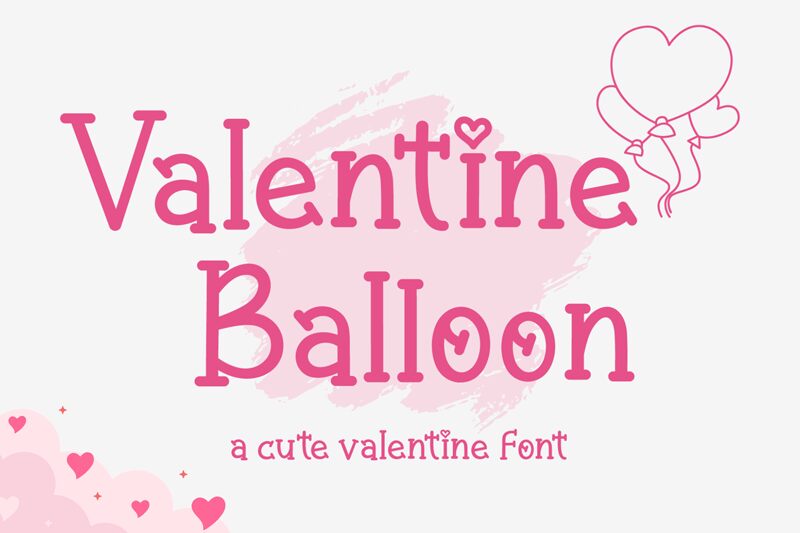
Valentine Balloon
Valentine Balloon font by AEN Creative Studio is a free romantic holiday font. Each letter feels puffed and airy, like ink-drawn balloons with playful curls and tiny heart details that float above the line. The strokes are rounded and friendly, giving your text a hand-doodled, affectionate feel that’s sweet without being cheesy, great for projects that need charm and warmth in an instant.
Using Valentine Balloon, your Valentine’s cards, party invitations, classroom printables, stickers, social media posts, and gift tags all gain a whimsical, love-struck voice. The generous spacing keeps it readable even at larger sizes, where those swirls and hearts really shine. This free font pairs nicely with a clean sans serif for body text-set Valentine Balloon for headings and short phrases, and let a simple companion carry the details.